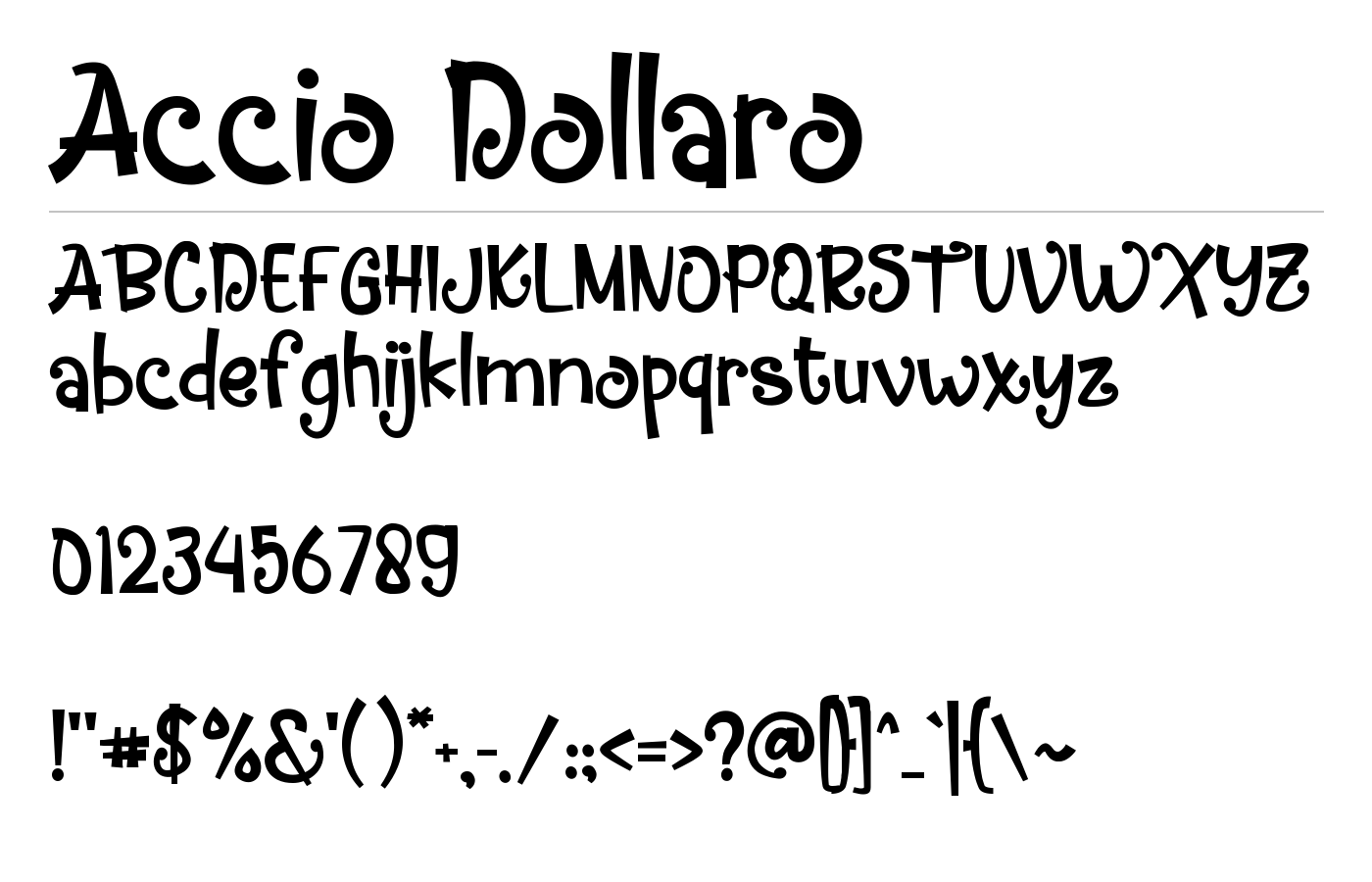
Accio Dollaro is a playful, whimsical sans serif font with a quirky, hand-drawn feel. Its irregular letter shapes, lively curves, and slightly varied stroke widths give it a fun and informal personality, making it ideal for creative projects, children’s materials, or lighthearted branding. This font works best in headlines, logos, and packaging where a unique, energetic, and friendly vibe is desired.
Accio Dollaro Font
About Accio Dollaro Font
| Designer | Sahirul Sugih |